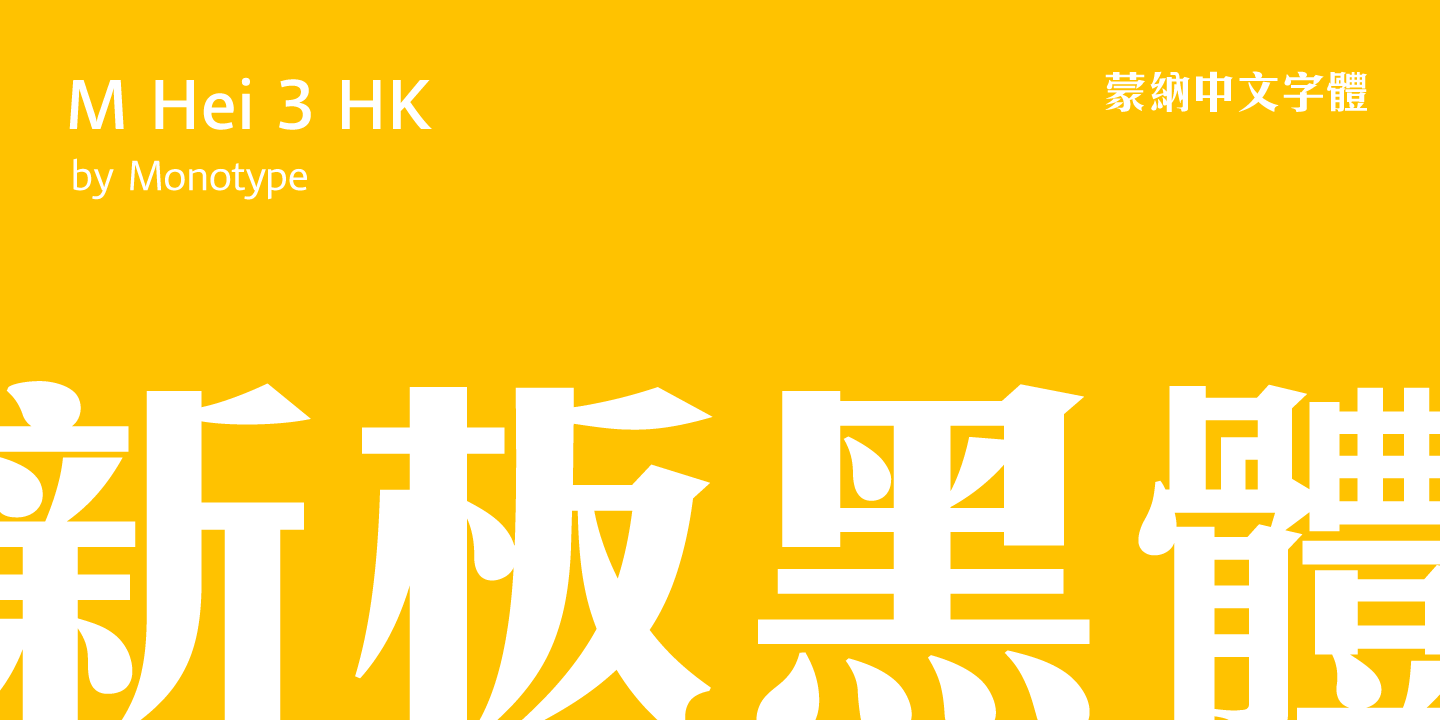
M Hei3 HK Font Free Download delivers a sophisticated typeface that combines traditional Chinese typography with modern Hong Kong design aesthetics and international functionality. However, for commercial use, you must purchase this font. You can download it for free for testing purposes only.
M Hei3 HK Font excels in multilingual design applications including Hong Kong corporate branding, Chinese-English bilingual publications, international business presentations, Asian market materials, cultural institution signage, educational textbooks, government communications, financial services documentation, retail packaging, and digital interface design. This versatile typeface brings cultural authenticity to global communication projects.
What makes M Hei3 HK Font truly exciting is its masterful balance of traditional Chinese character structure with contemporary sans-serif clarity that ensures excellent readability across multiple languages. The font features carefully optimized letterforms with consistent stroke weights and proper character spacing that maintain cultural authenticity while meeting modern digital display requirements. Its bicultural appeal and professional quality make it ideal for organizations operating in Hong Kong and Greater China markets seeking trustworthy typography that bridges Eastern and Western design sensibilities.
The M Hei3 HK Font family typically includes multiple weights such as Light, Regular, Medium, Bold, and Black variations optimized for both traditional and simplified Chinese characters. These comprehensive options provide designers with complete typographic flexibility for complex multilingual layouts while maintaining cultural appropriateness and optimal legibility standards.
Whether you're developing Asian market branding, creating bilingual publications, or designing cross-cultural campaigns, M Hei3 HK Font Free Download provides the cultural authenticity and international sophistication that global projects require. Its exceptional heritage and modern functionality make it invaluable for designers working with Hong Kong businesses, Chinese organizations, and international companies requiring professional typography that honors traditional Chinese design principles while embracing contemporary communication standards.